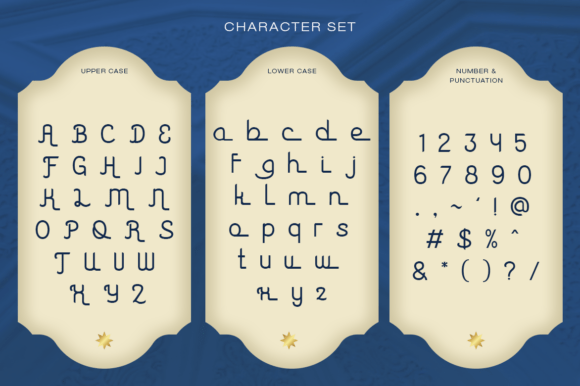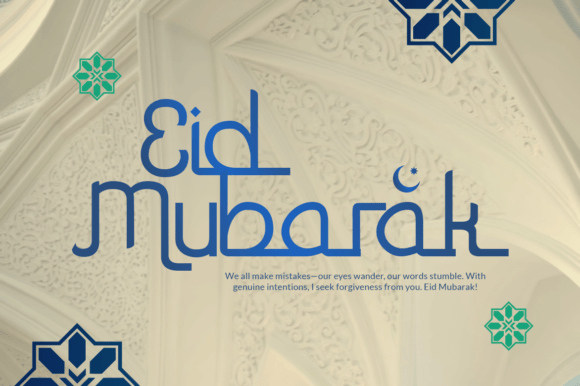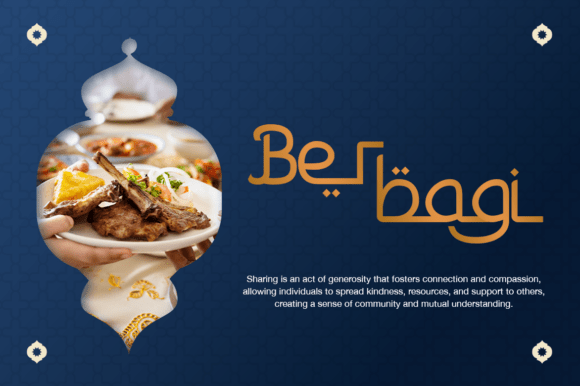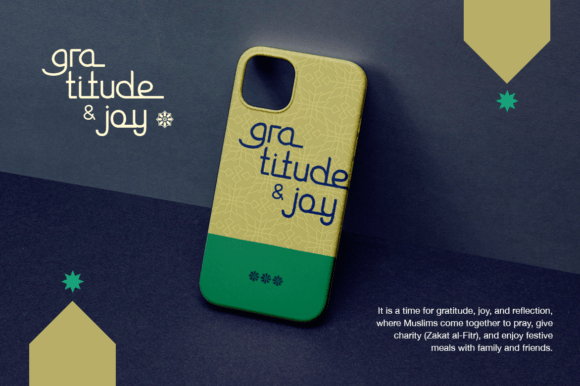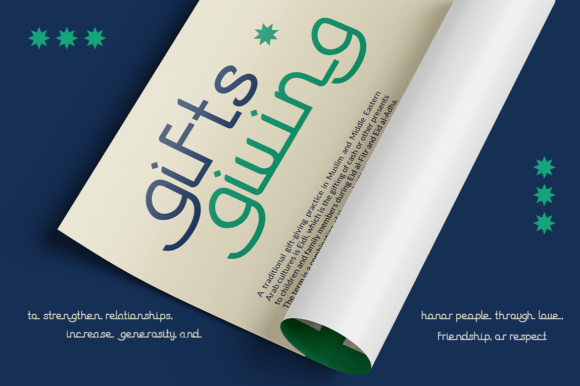
Fardhana Font: A Majestic Islamic Display Typeface
In the realm of typography, few fonts manage to strike a balance between geometric precision and traditional flair. Fardhana Font is one such exceptional typeface that embodies the essence of Islamic art and architecture. With its steady monolinear weight and distinctive “nuqta” (dot) accents, Fardhana offers a clean yet ornate presence that is sure to captivate designers and crafters alike.
Inspiration from Modern Mosques
The structure of Fardhana Font is inspired by the soaring arches of modern mosques, which are iconic symbols of Islamic architecture. The font’s design is characterized by its fluid lines, harmonious proportions, and intricate details, making it a perfect fit for prestige branding. Whether you’re working on a cultural identity project, museum exhibition, or high-end Ramadan marketing campaign, Fardhana Font is an excellent choice.
Key Features of Fardhana Font
- Steady Monolinear Weight: Fardhana Font boasts a consistent monolinear weight, which gives it a sense of elegance and sophistication.
- Distinctive “Nuqta” Accents: The font features distinctive “nuqta” (dot) accents, which add a touch of traditional flair to its design.
- Geometric Precision: Fardhana Font is characterized by its geometric precision, making it perfect for designs that require a sense of modernity and sophistication.
- Ornate Presence: Despite its clean design, Fardhana Font has an ornate presence that makes it suitable for high-end branding and marketing campaigns.
Best Use Cases for Fardhana Font
Fardhana Font is a versatile typeface that can be used in a variety of design projects. Here are some of the best use cases for this majestic Islamic display typeface:
- Cultural Identity Branding: Fardhana Font is perfect for cultural identity branding projects that require a sense of tradition and heritage.
- Museum Exhibitions: The font’s elegant design makes it suitable for museum exhibitions that showcase Islamic art and culture.
- High-End Ramadan Marketing: Fardhana Font is an excellent choice for high-end Ramadan marketing campaigns that require a sense of luxury and sophistication.
Why Designers and Crafters Love Fardhana Font
Fardhana Font has quickly become a favorite among designers and crafters due to its unique blend of traditional and modern elements. Here are some reasons why:
- Unique Design: Fardhana Font has a distinctive design that sets it apart from other typefaces.
- Versatility: The font can be used in a variety of design projects, from cultural identity branding to high-end marketing campaigns.
- Elegance: Fardhana Font exudes elegance and sophistication, making it perfect for designs that require a sense of luxury.
In conclusion, Fardhana Font is a majestic Islamic display typeface that balances geometric precision with traditional flair. Its steady monolinear weight, distinctive “nuqta” accents, and elegant design make it a perfect fit for prestige branding. Whether you’re working on a cultural identity project, museum exhibition, or high-end Ramadan marketing campaign, Fardhana Font is an excellent choice. Its versatility, elegance, and unique design have made it a favorite among designers and crafters. So, if you’re looking for a typeface that embodies the essence of Islamic art and architecture, look no further than Fardhana Font.